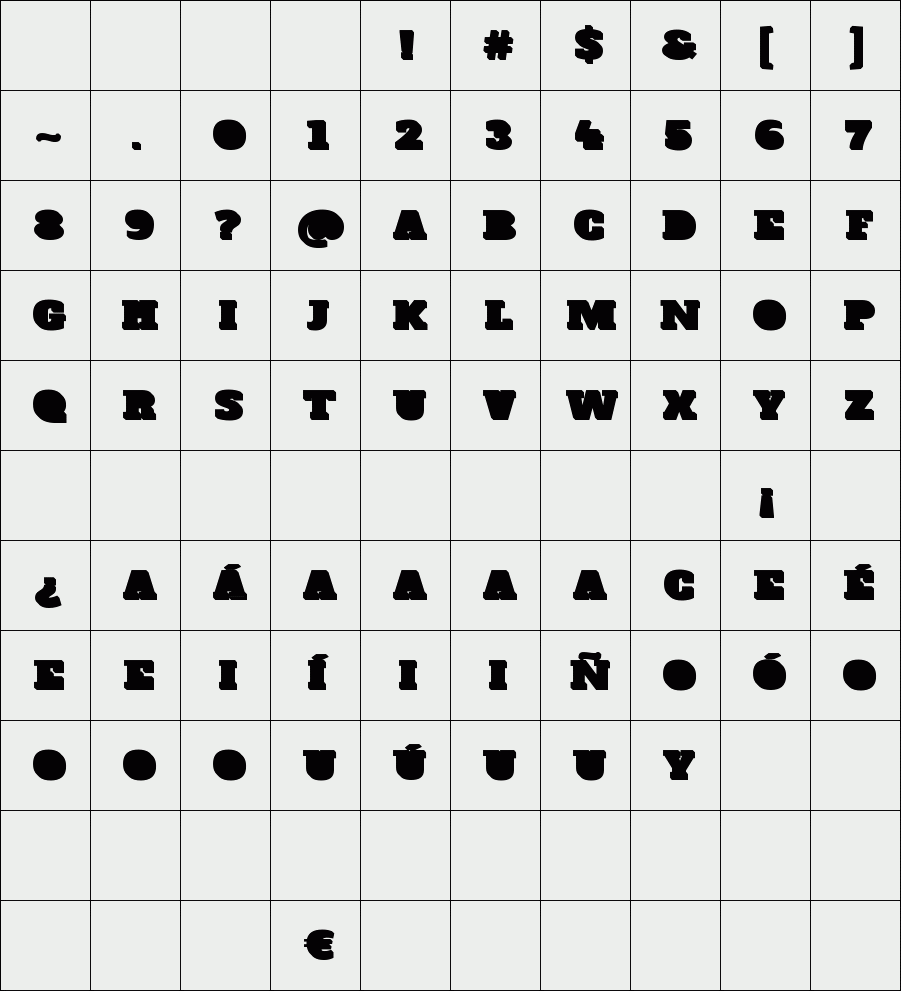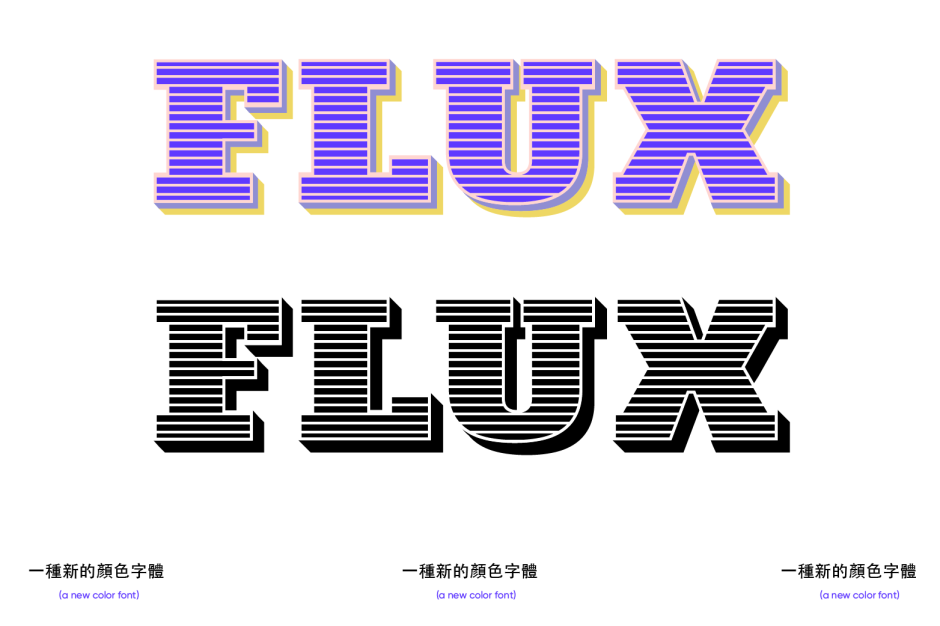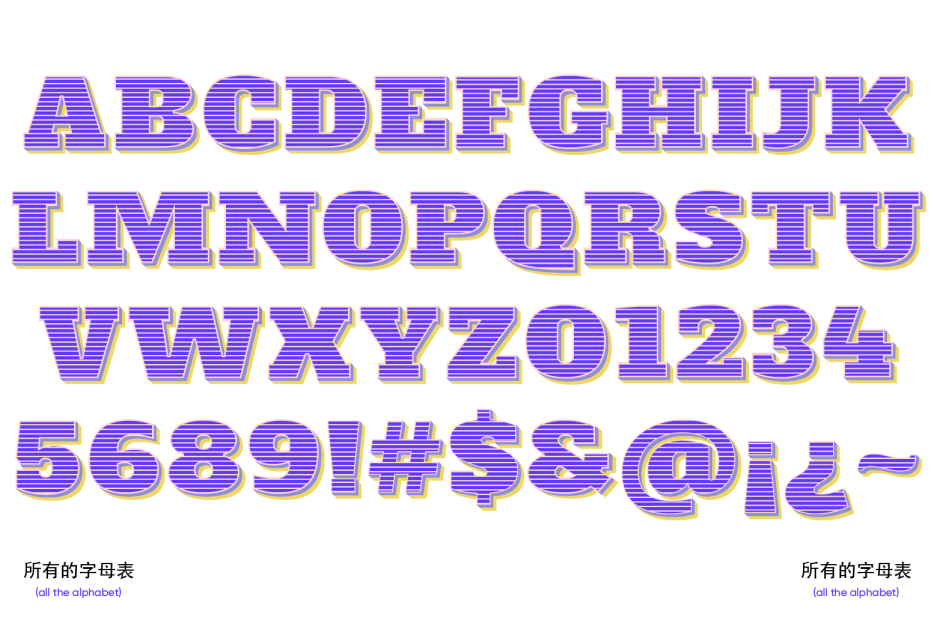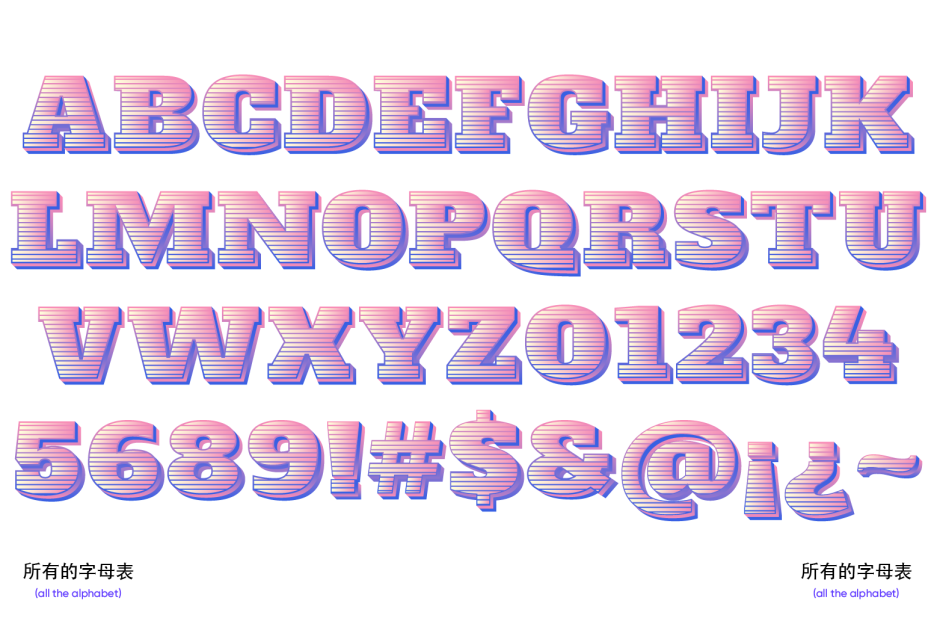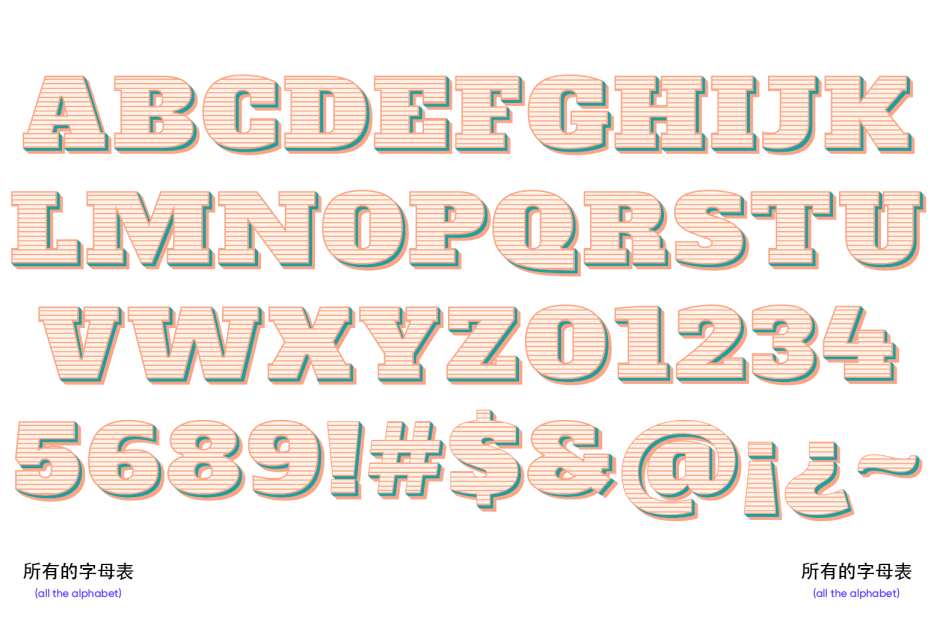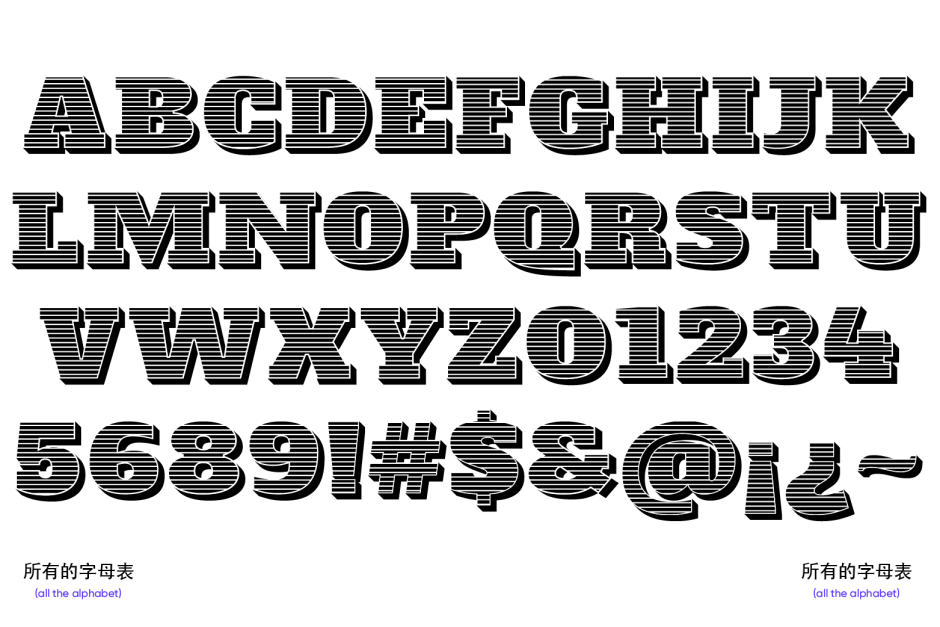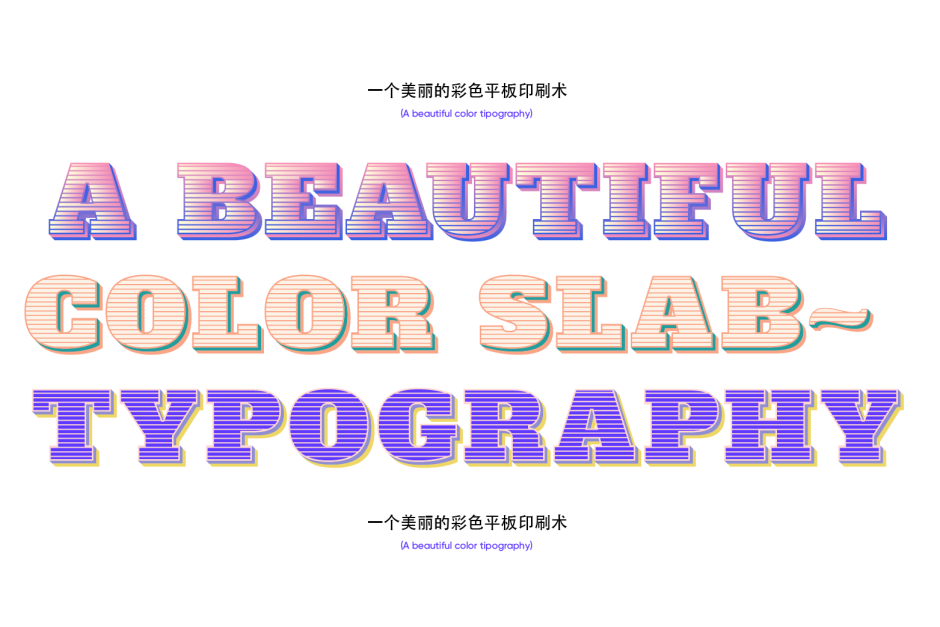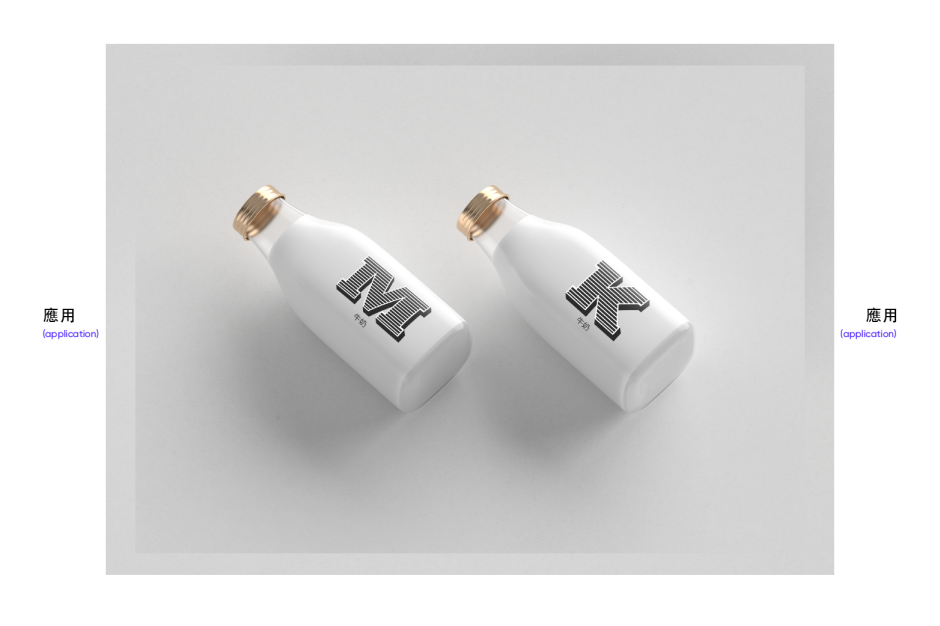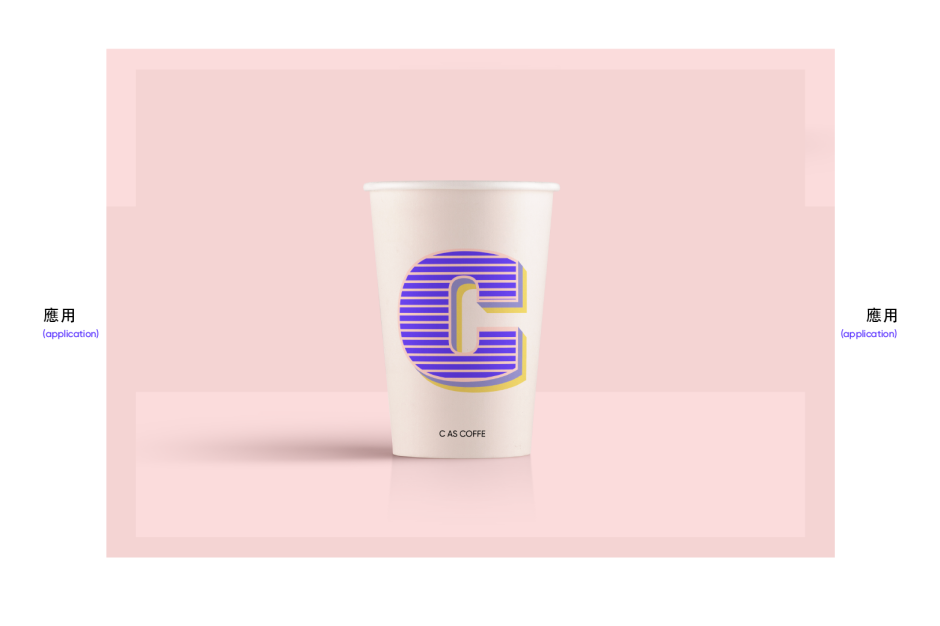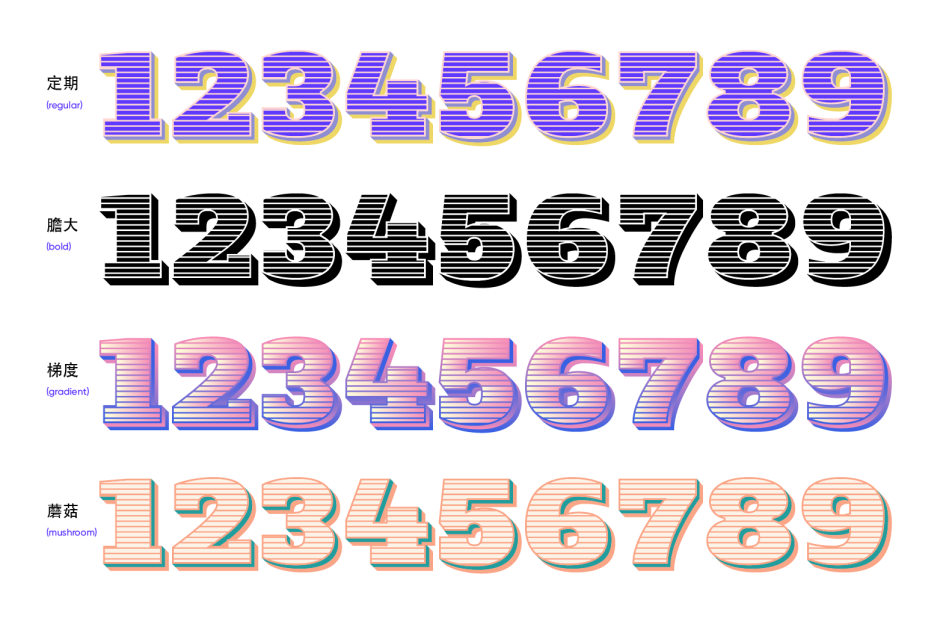
Flux
/ Flux Font
A beautiful typography of slab families, Flux has 4 variables (bold, regular, gradient and mushrooms). Ideal to put color to all your designs, such as logos, posters, stained glass and everything you can imagine.